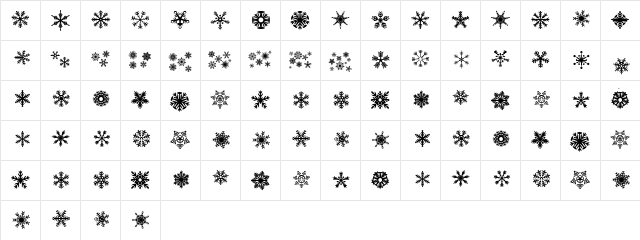
DH Snowflakes Regular
| Designer | David Holm |
Design Context for DH Snowflakes Typeface
DH Snowflakes is a composed and adaptable typeface that performs quietly and consistently across a wide range of design contexts.